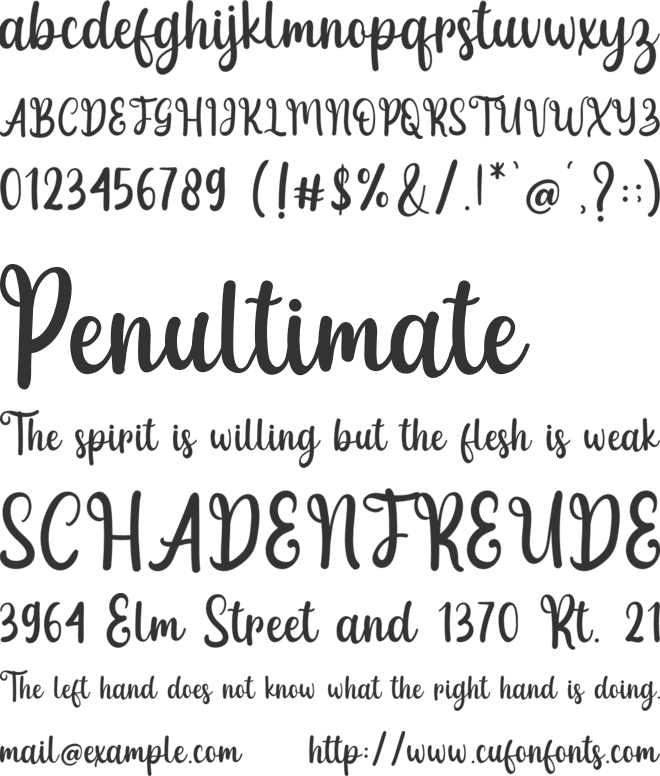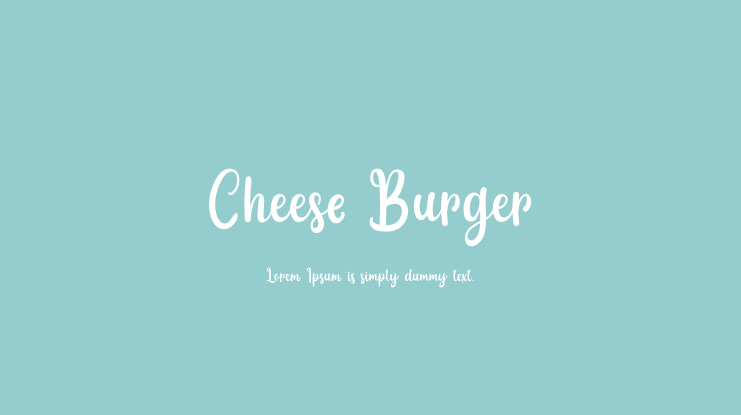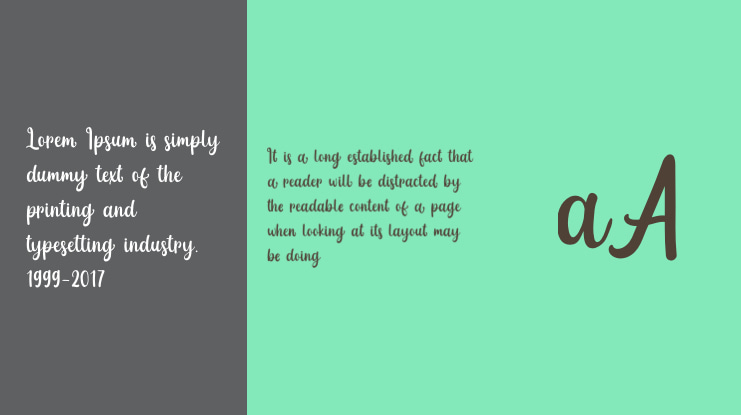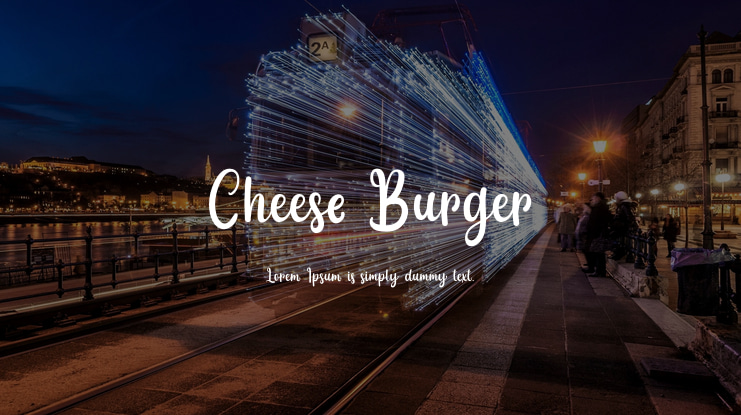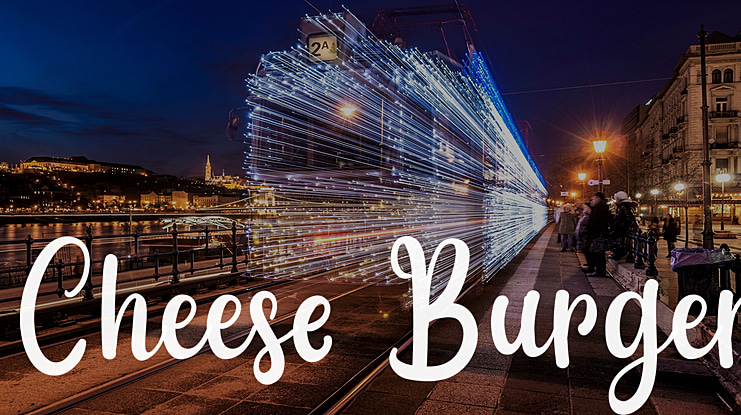
Cheese Burger Font
Jefri Dwi Alfatah
Cheese Burger is a delicate, elegant, and flowing handwritten font. it has beautiful and well balanced characters and as a result, it matches a wide pool of designs.
This font is suitable for use on branding, headings, wedding design, signatures, quotes, birthday card, watermarks, invitations, labels, and much more!